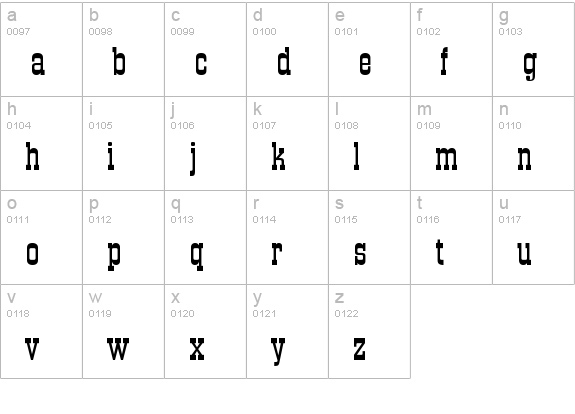
Old-TownExt-Normal is the standard, neutral variant in the Old typeface family \xE2\x80\x94 well suited to general body text, paragraphs, and standard typographic work.
Old-TownExt-Normal font is a classic and timeless typeface that exudes a sense of nostalgia and charm. With its elegant and refined design, this font is perfect for adding a touch of sophistication to any project. Whether you're creating invitations, posters, or branding materials, Old-TownExt-Normal font will elevate your designs to the next level. The best part? Old-TownExt-Normal font is completely free to download at FontsMarket.com. You can easily access this beautiful typeface and use it for both personal and commercial projects without any restrictions. Don't miss out on the opportunity to enhance your designs with the beauty and versatility of Old-TownExt-Normal font. Download it today and let your creativity shine!